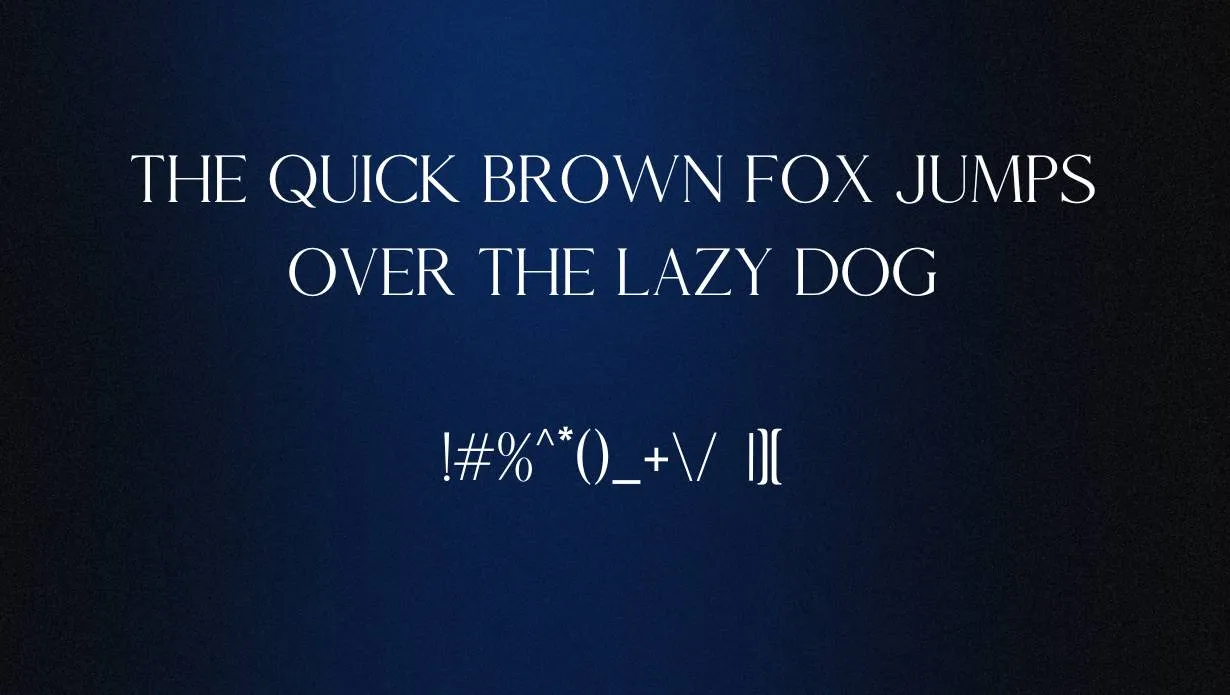
Mories Luxerie font embodies luxury and sophistication, commonly seen in high-end branding, invitations, or projects requiring a lavish feel.
Its opulent style adds an air of exclusivity and grandeur to various design elements, making it an excellent choice for projects that demand a sense of luxury and sophistication.